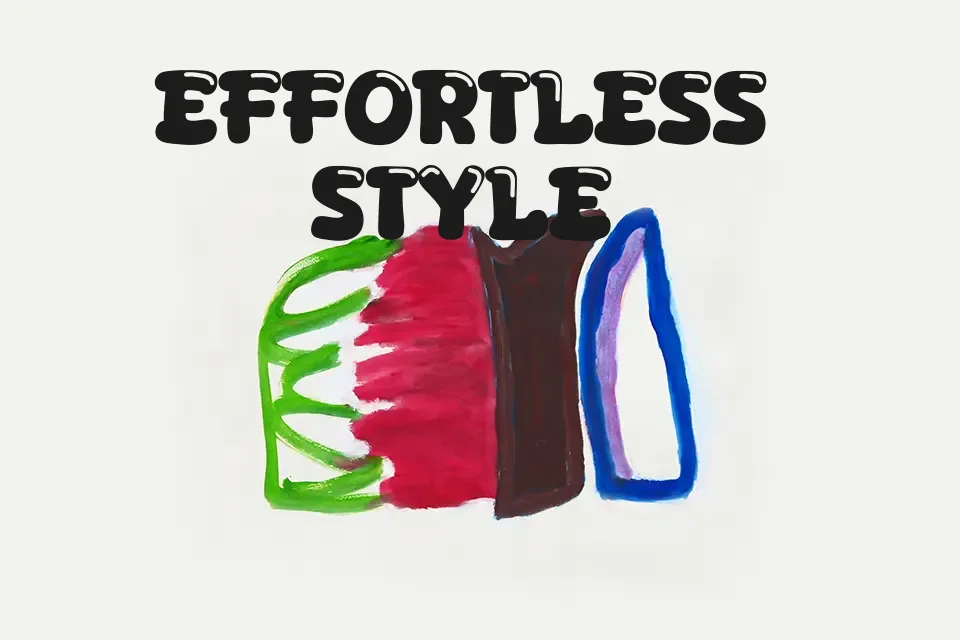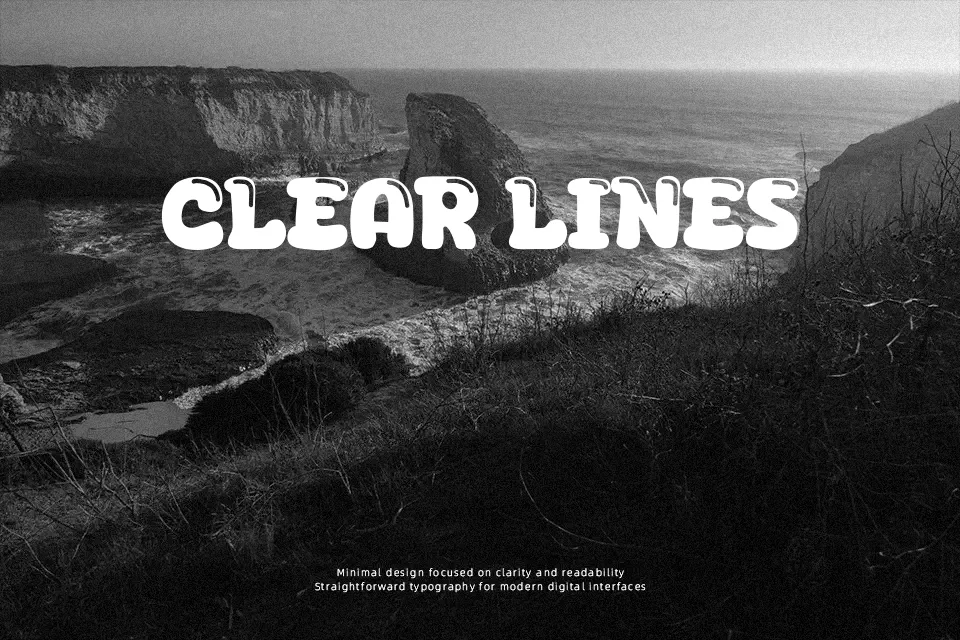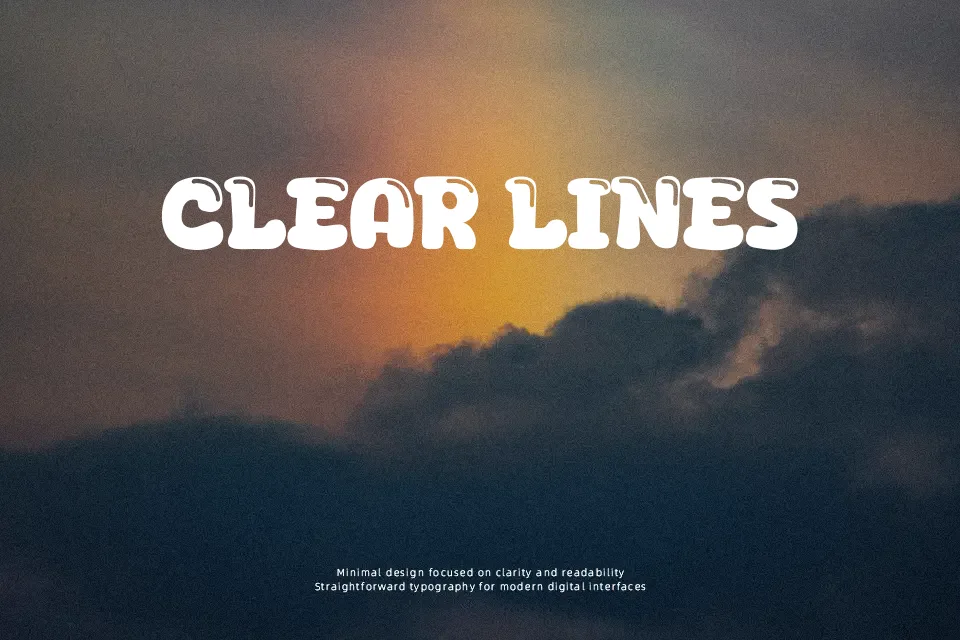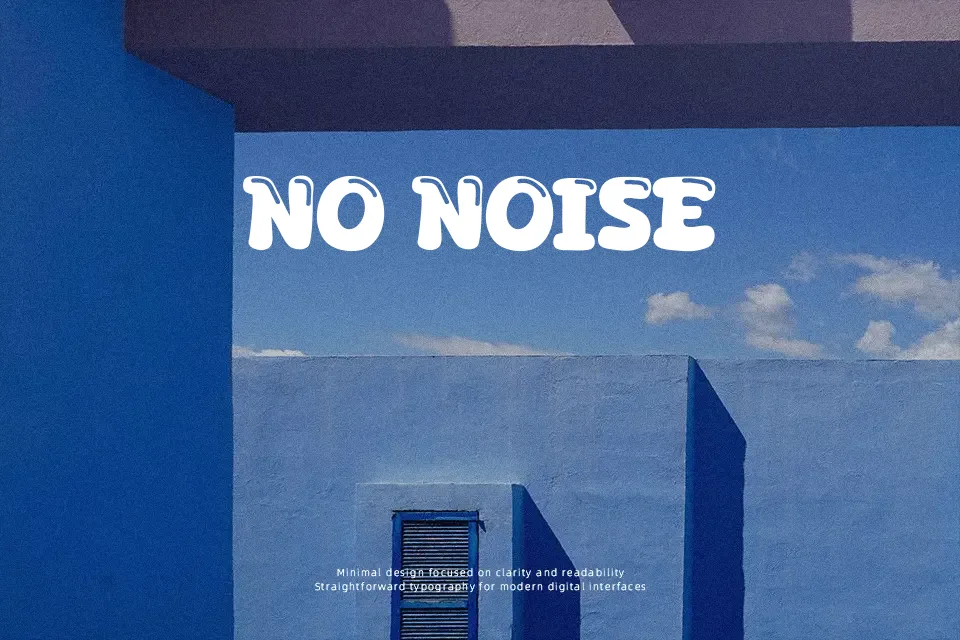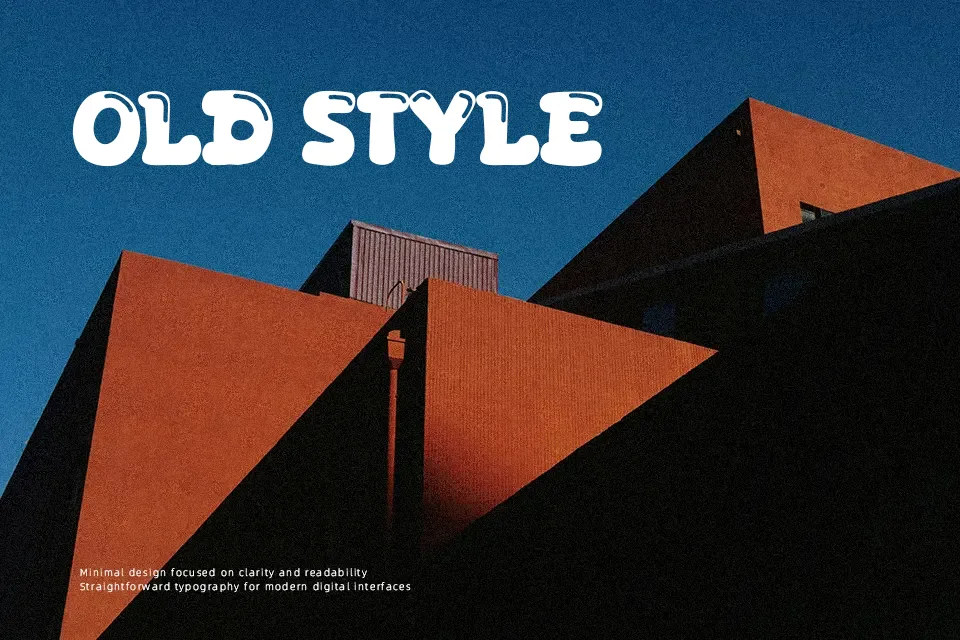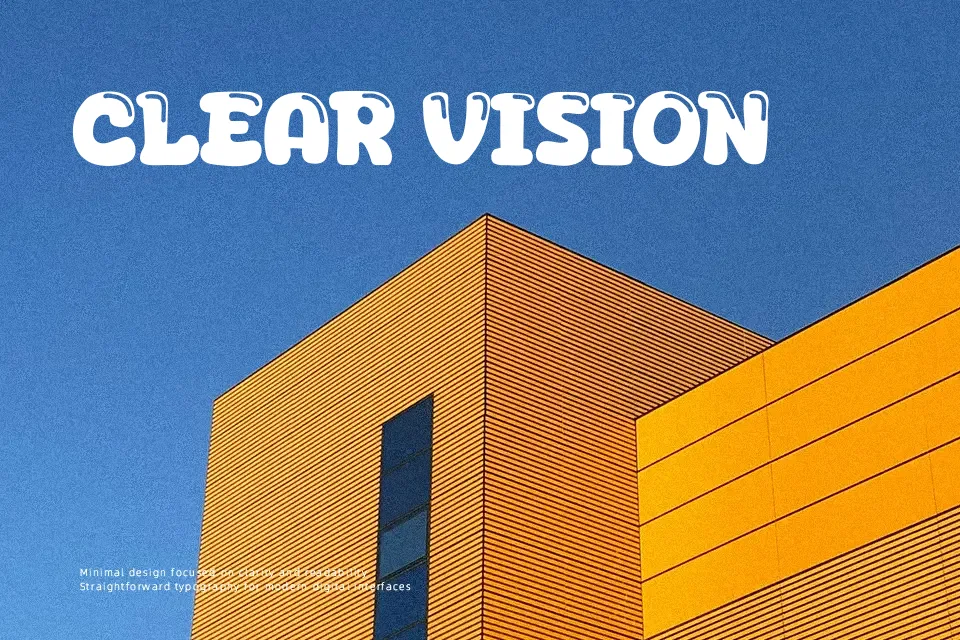
Aqua Wow Font
Designed by Khurasan™
Aqua Wow is a chunky display face with thick, rounded strokes and wide, cartoon-like shapes that create a soft, bubbly silhouette on the page. Spacing is tight and compact, so letters cluster into dense, lively word shapes that immediately draw attention. The overall impression is casual and playful rather than formal, which works well for kids’ products, comics-inspired poster titles, playful logos, and vibrant banners or thumbnails. It shines when used large as a headline, but becomes hard to read in long paragraphs or at small sizes because of its heavy forms and decorative character. Choose this font when you want an energetic, whimsical touch, and pair it with a simple sans serif for supporting text to avoid visual overload.
children’s book covers and titles
toy or kids’ product packaging
playful logo marks and wordmarks
social media thumbnails and promo banners
long paragraph text or body copy
formal corporate or editorial documents
small UI labels or navigation menus
serious legal, financial, or academic reports
Perfect for headline, logo, and packaging, with a artistic and cartoon style.